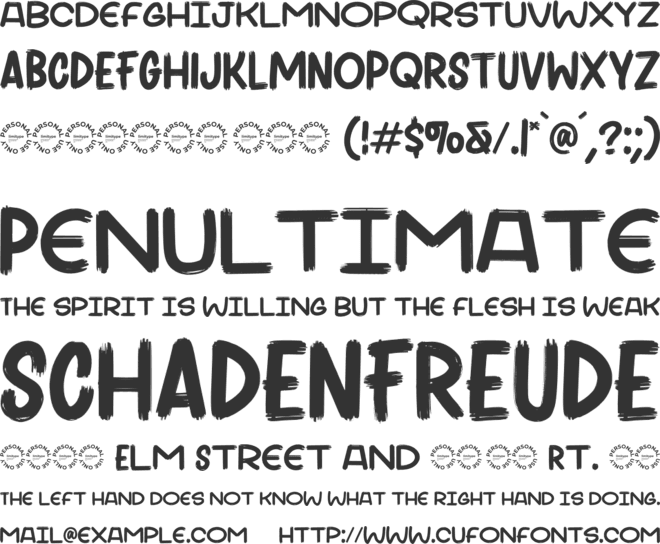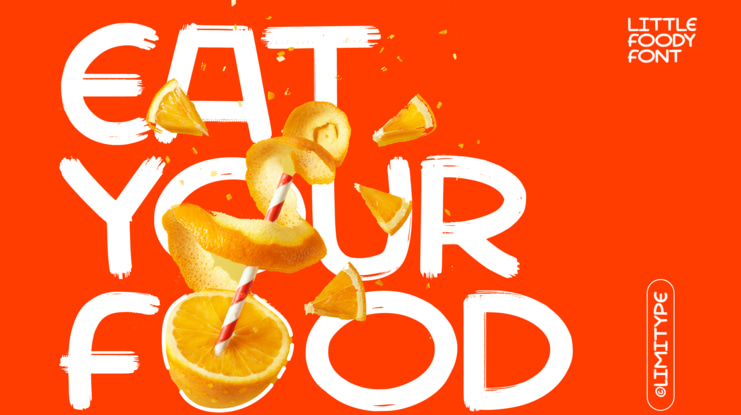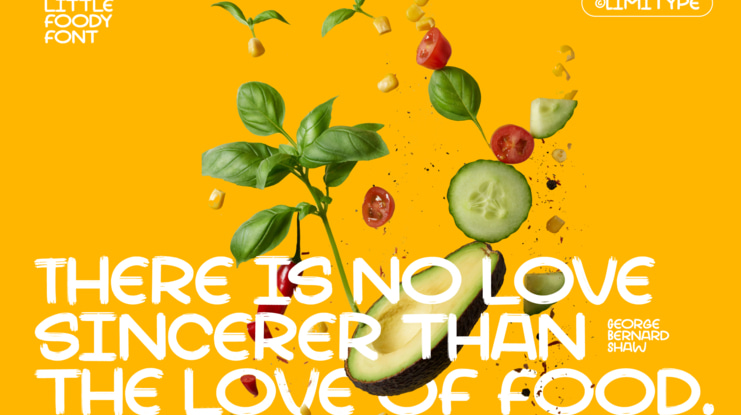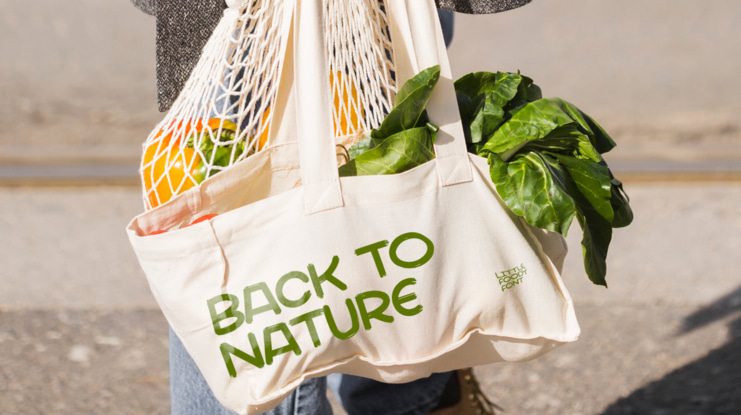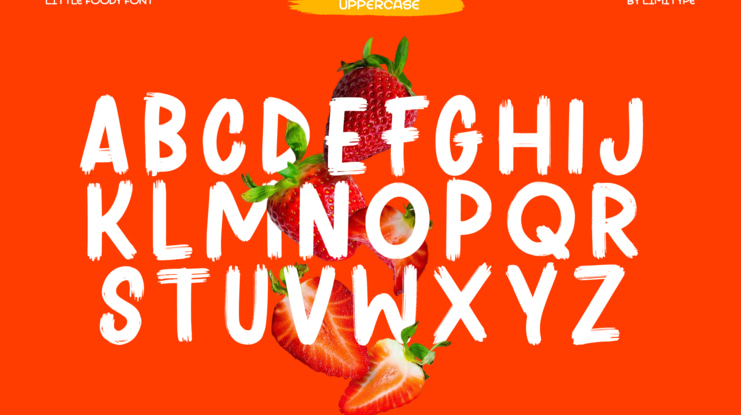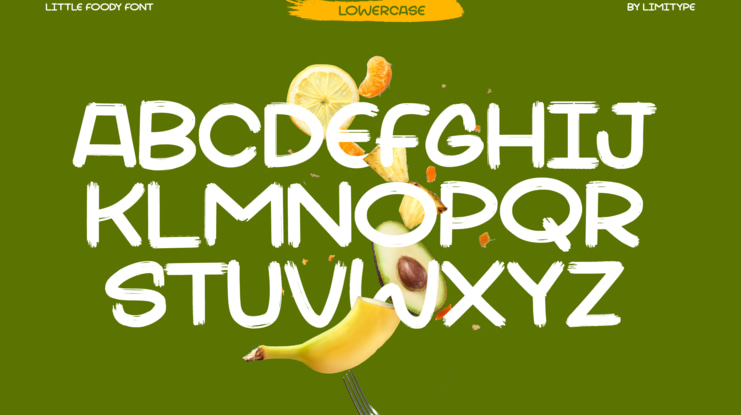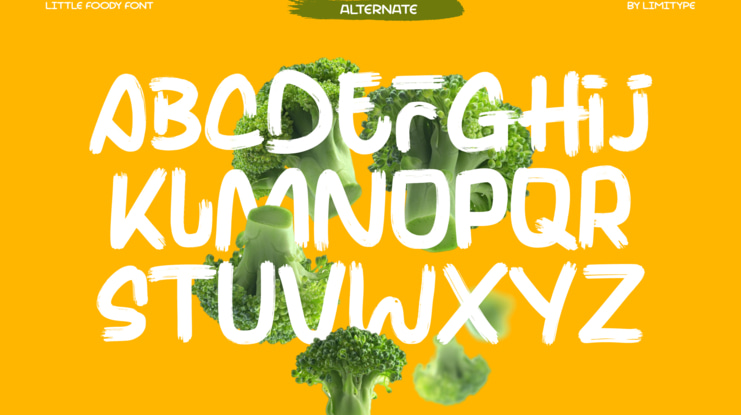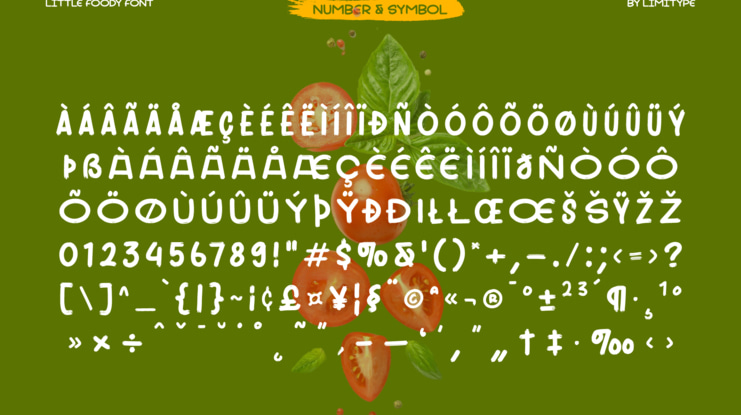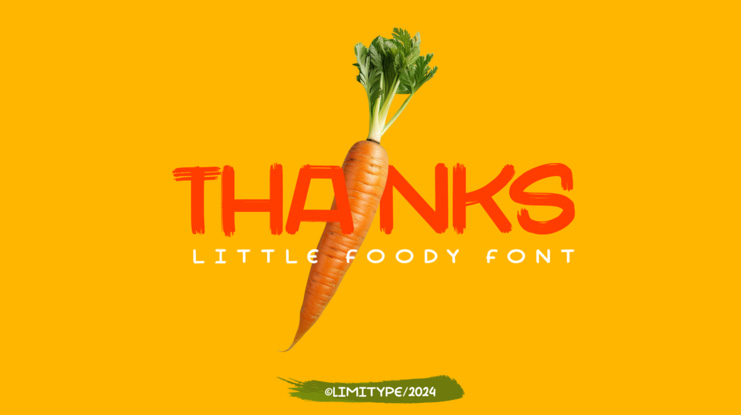
LITTLE FOODY DEMO Font
Little Foody is a unique and fun display font made with a touch of handwriting using a brush, Little Foody is available with Allcaps font which is available with 3 different typefaces in Uppercase, lowercase, and alternate. and also this font is equipped with multilingual, numbers and symbols